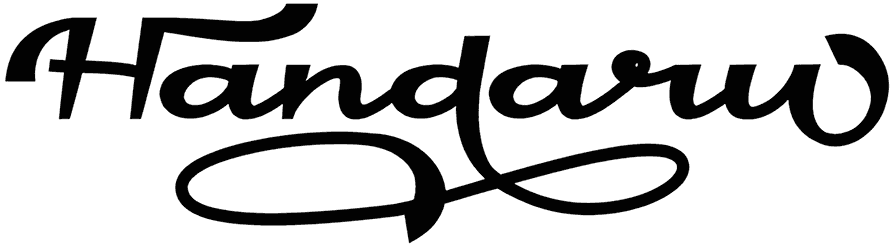
Handaru Font
Handaru is an incredibly versatile script font that has various applications ranging from logos, business cards, and greeting cards, to book covers. Considering its potential in leveling up the quality of your graphic content to a higher level by conveying a sense of personalization, drama, jauntiness, and dreaminess, the lack of numbers is not a serious problem at all.